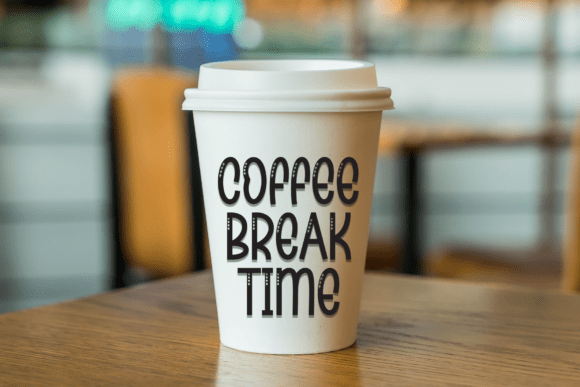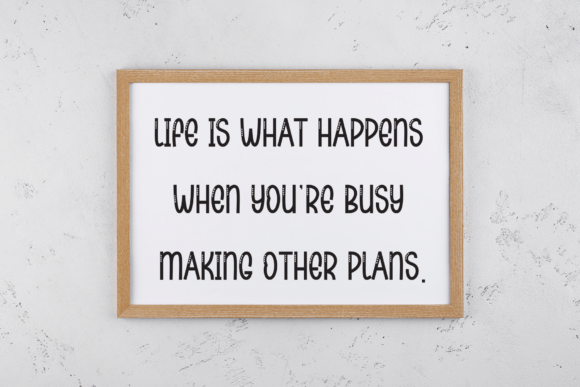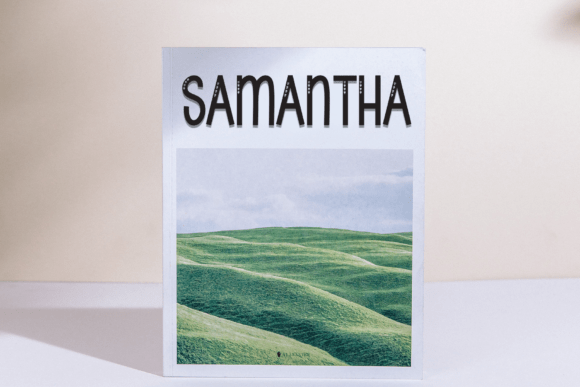
Sketching Font
Introducing the delightful charm of a handwritten display font that exudes sweetness and friendliness in every curve. Perfectly designed to bring a dash of fun and cuteness to your crafting projects. Ideal for creating whimsical wedding invitations, delightful cards or any design project that craves a playful touch. Embrace the joyous spirit of this font and let your design tell a tale of fun, warmth, and conviviality.